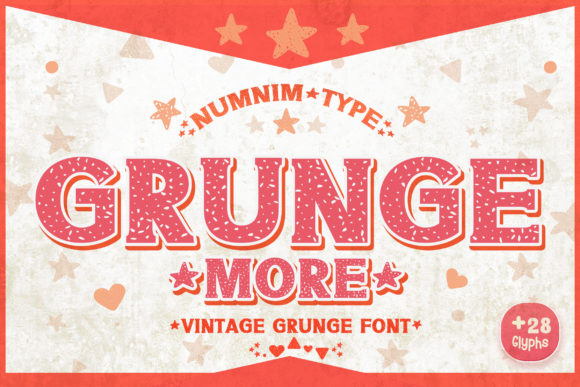
Welcome to the world of Grunge More font, a captivating display font that spells charm and character. This remarkable creation from the mind of numnim is set to transform your creative projects with its bold and vintage vibes.
Grunge More is more than just a font; it's an experience that takes you back in time. Its carefully crafted glyphs and effortless swashes evoke a sense of nostalgia, adding a touch of timeless appeal to your creations.
Visualize your digital designs bursting with personality, your presentations captivating audiences with their retro charm, and your greeting cards exuding warmth and individuality. Grunge More is the perfect companion for those seeking a font that speaks to the heart.
Its PUA encoding makes accessing all the glyphs and swashes a breeze, ensuring that you can effortlessly add flair and creativity to your projects. Grunge More is perfect for:
- Crafting heartfelt messages on personalized mugs, cards, and décor.
- Creating eye-catching posters and flyers that demand attention.
- Adding a touch of vintage elegance to logos and branding materials.
- Designing social media posts that pop and capture the imagination.
- Unleashing your creativity in digital artwork and illustrations.
With Grunge More, the possibilities are endless. It's the font that adds soul to your designs, making them stand out from the crowd. Experience the magic of Grunge More today and let your creativity soar!